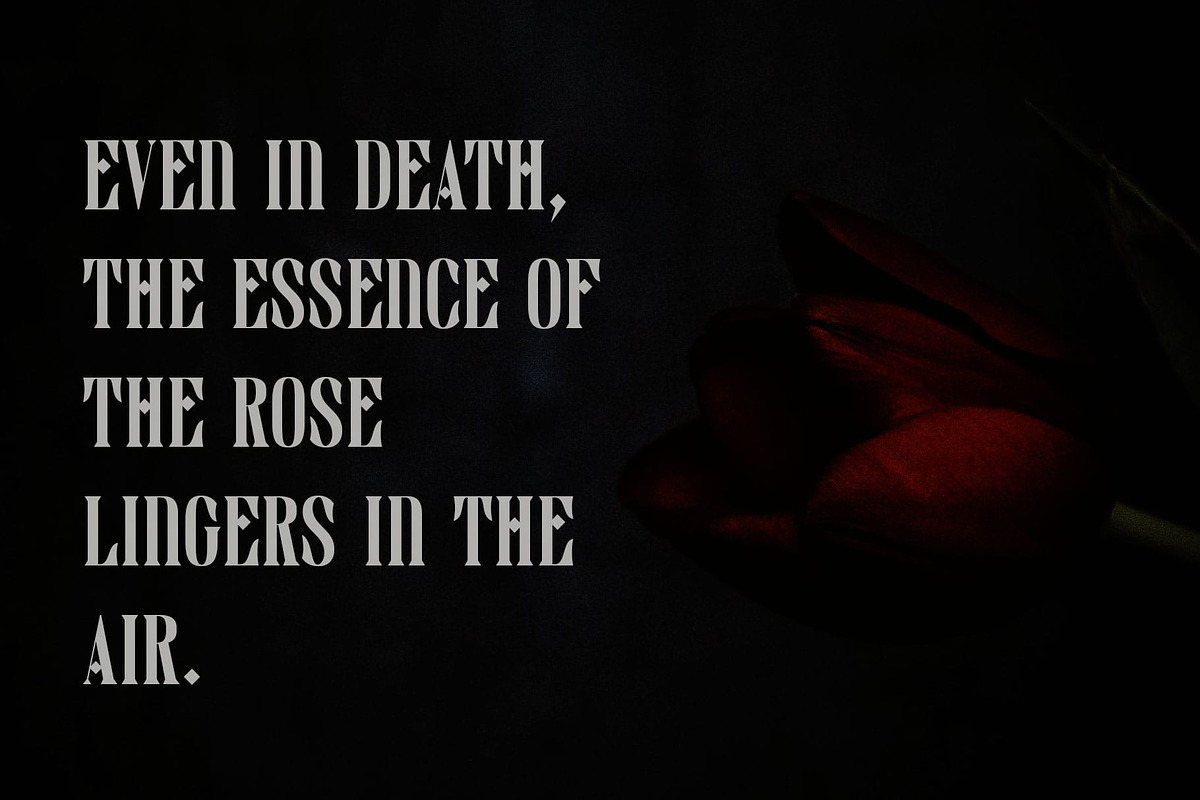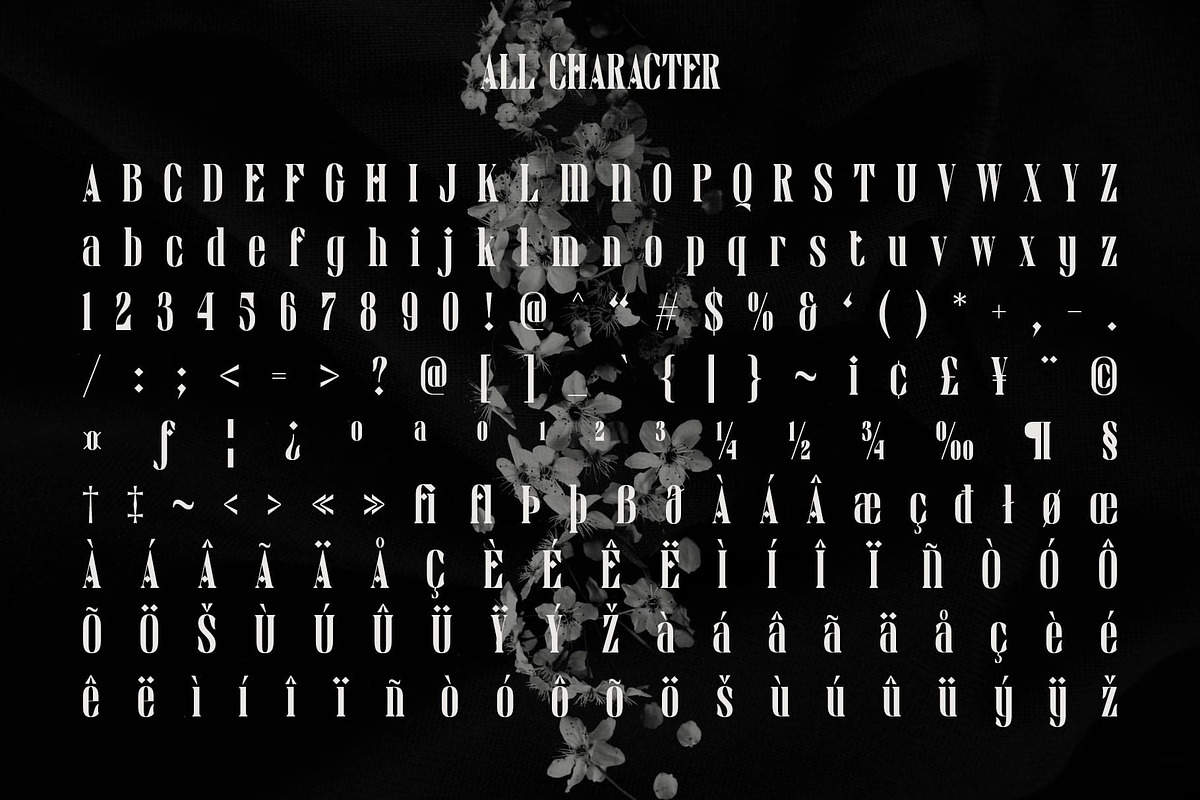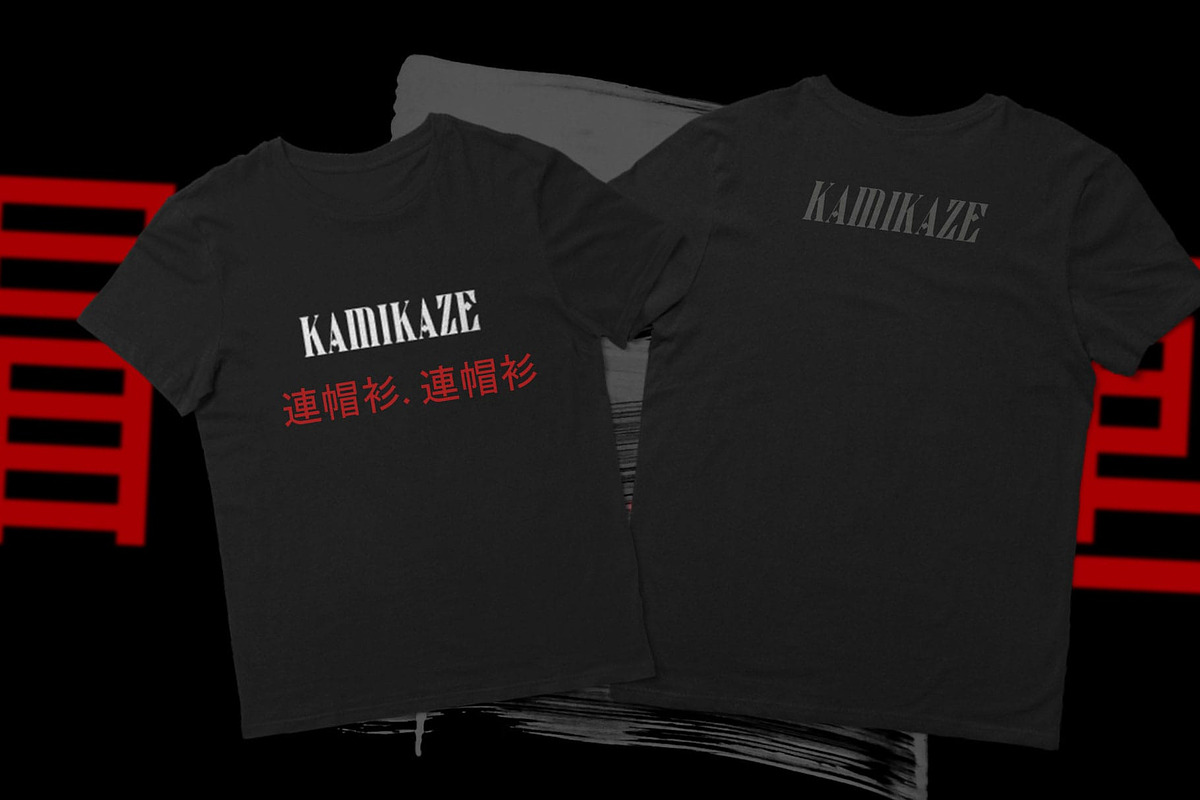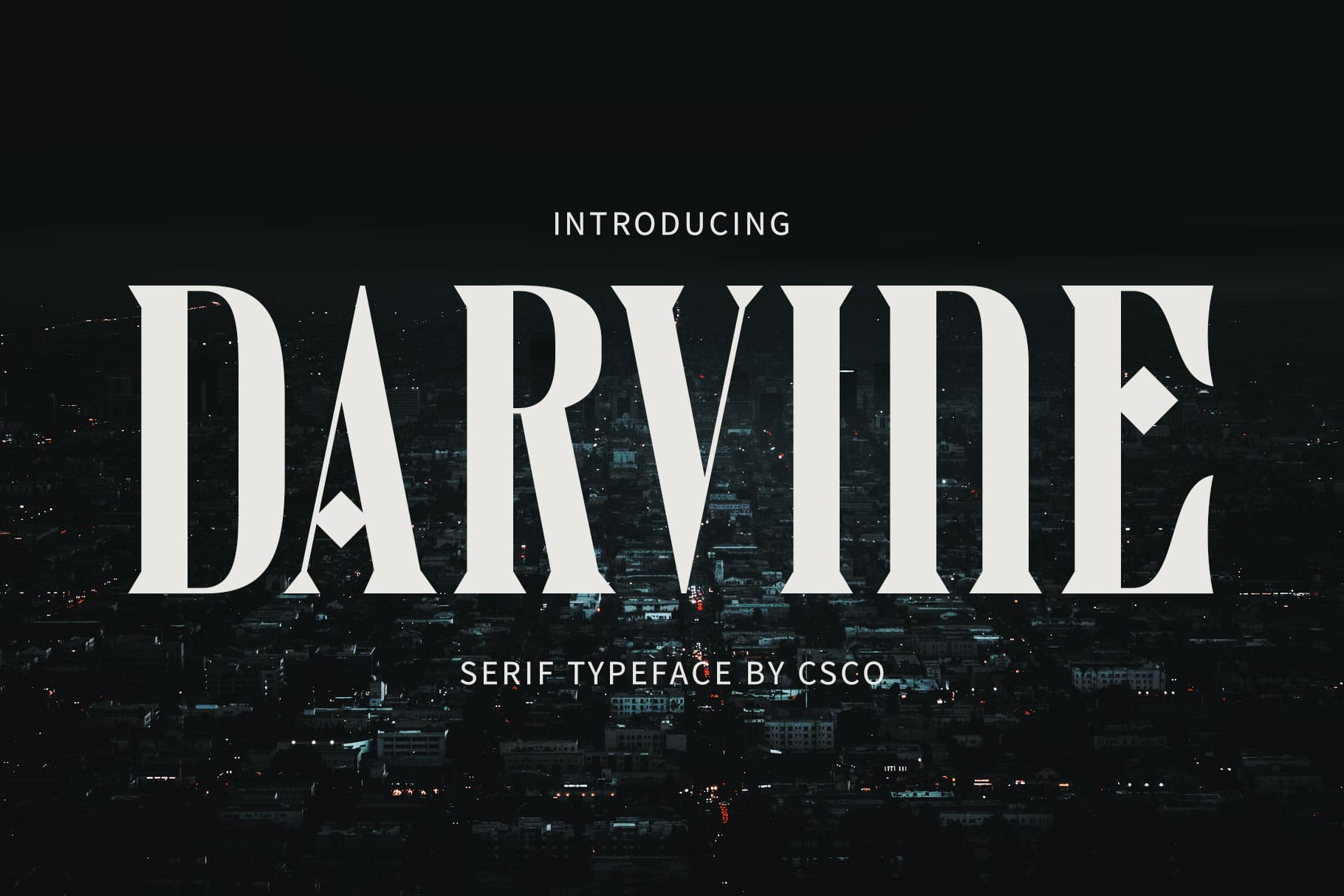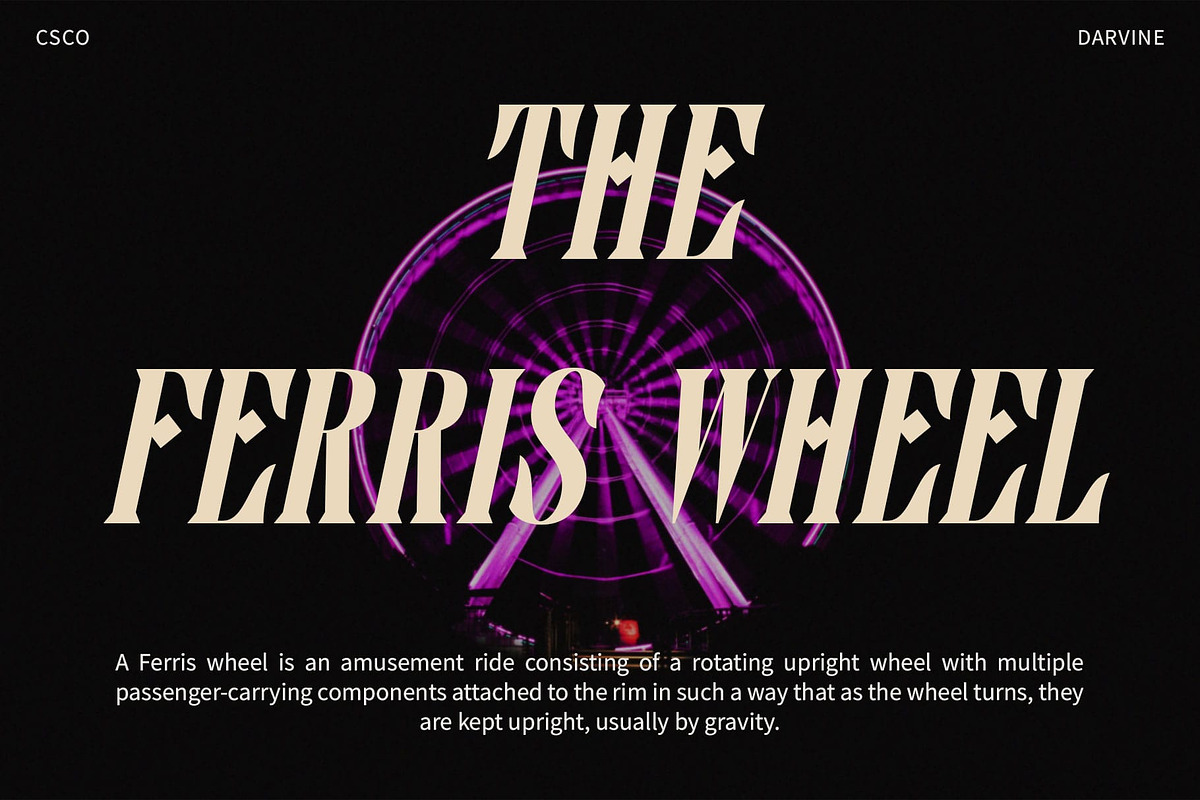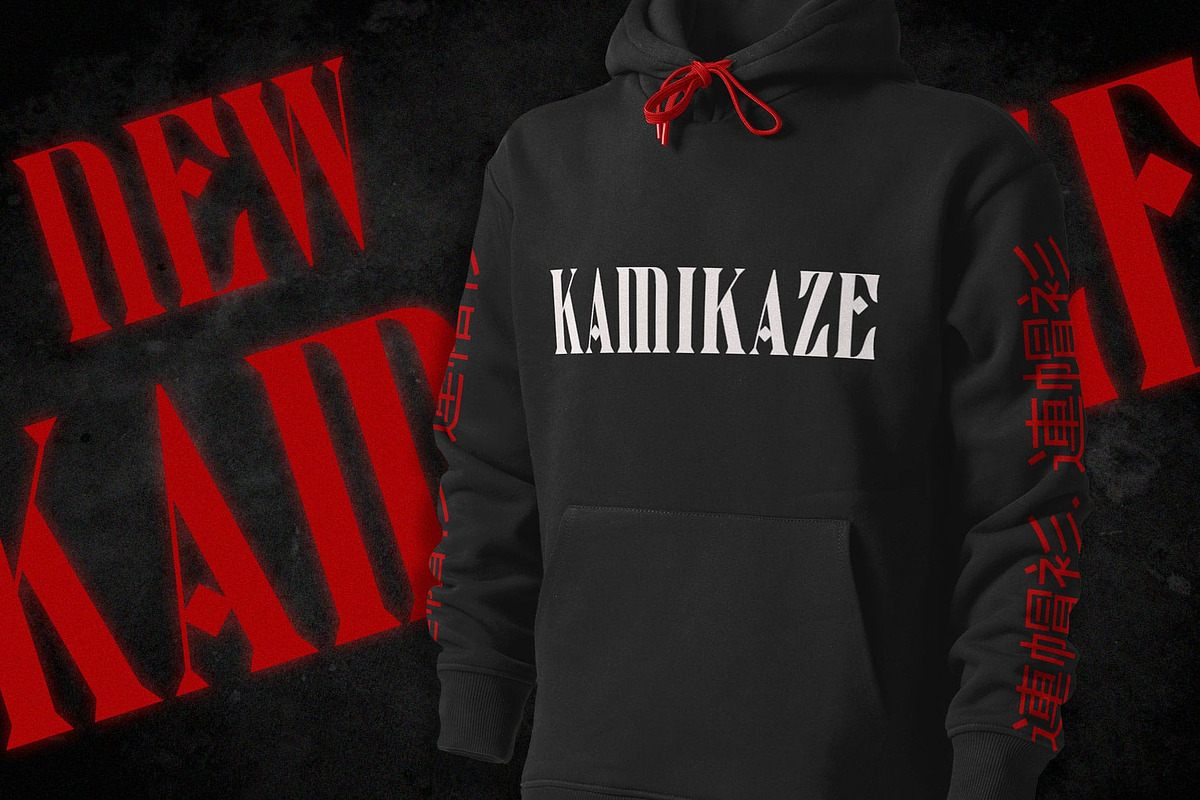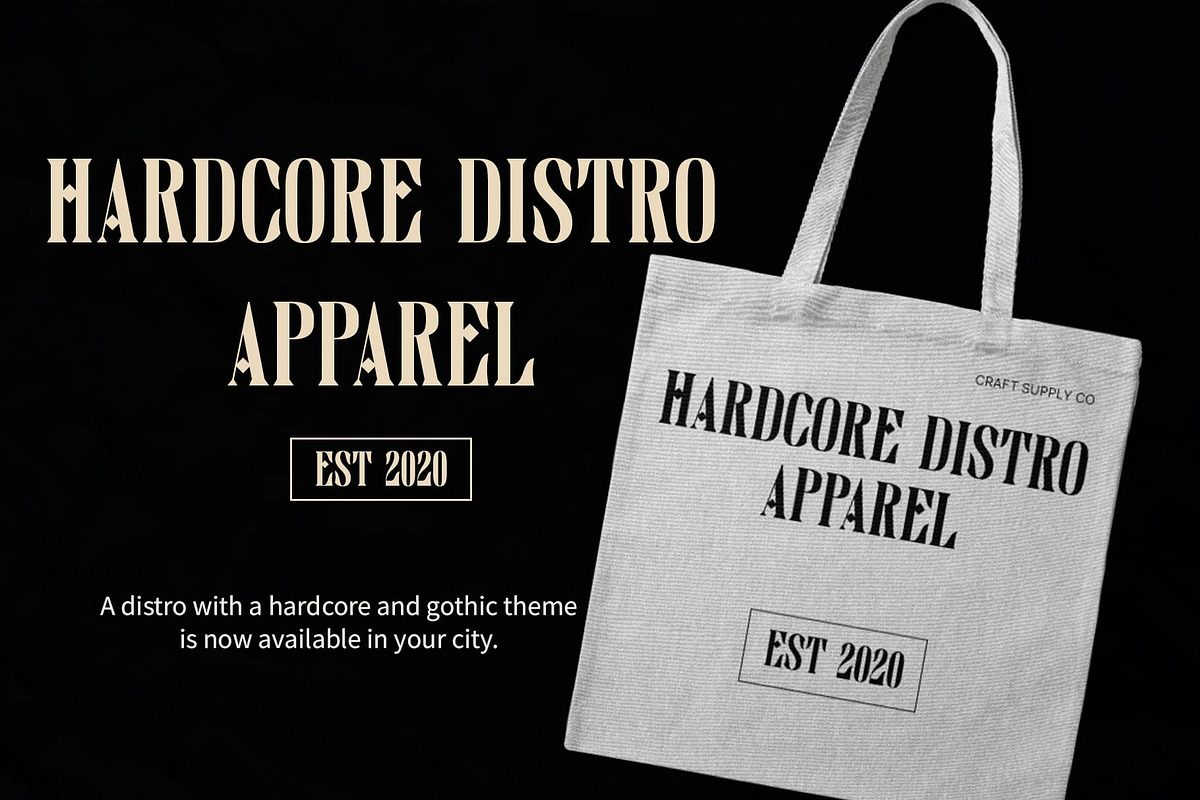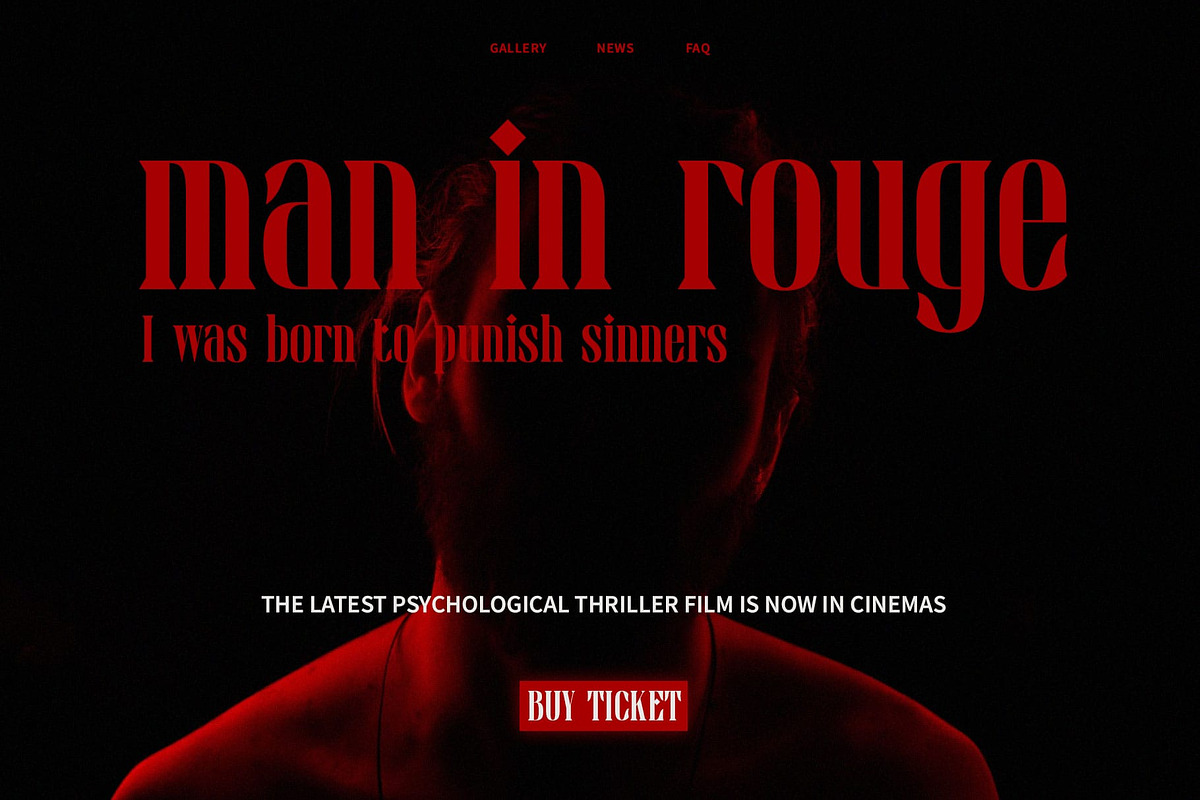
Darvine – Serif Font
Darvine Typeface: Elevate Your Display Typography
Sleek and Contemporary Design Darvine presents a tall serif typeface with a sleek and contemporary aesthetic. Its modern shape adds a touch of sophistication to any display project.
Perfect for Display Purposes Tailored for display use, Darvine shines in various contexts, from headlines to branding. Its tall stature and refined design make it ideal for grabbing attention and conveying elegance.
Versatile Application Beyond its captivating appearance, Darvine offers versatility in any application. Whether used in digital or print media, its contemporary serif style lends a sense of refinement and professionalism.
An Essential Addition to Your Typeface Collection Darvine emerges as an essential addition to any designer’s toolkit. With its tall and contemporary serif design, it brings a modern flair to display typography, making it a must-have for projects that demand sophistication and style.
- Darvine Regular
- Darvine Italic